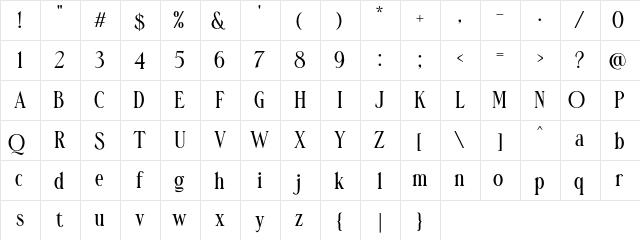
Danielle Harris DEMO Regular
| Foundry | Letterhend Studio |
| Designer | Hendry Juanda, Sarid Ezra |
Danielle Harris DEMO is a composed and adaptable typeface that performs quietly and consistently across a wide range of design contexts.